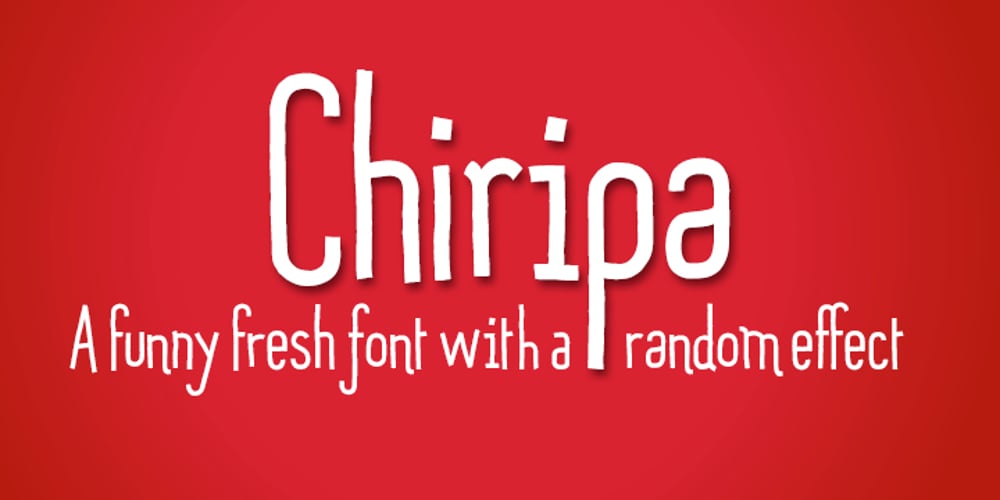
Chiripa Font Family was designed by Juanjo Lopez and published by Huy!Fonts. Chiripa contains 1 styles and family package options. Chiripa is a casual, handcrafted, display font that gets a semi-random effect rotating between three different sets of characters (with Contextual Alternates on). Chiripa means luck in Spanish, but if you do not trust in your Chiripa you can turn Contextual Alternates off and change the glyphs switching between sets in the OpenType menu of your application or in the Glyphs list. Chiripa is perfect for children’s books, fresh advertising, food packaging and any use in large sizes.